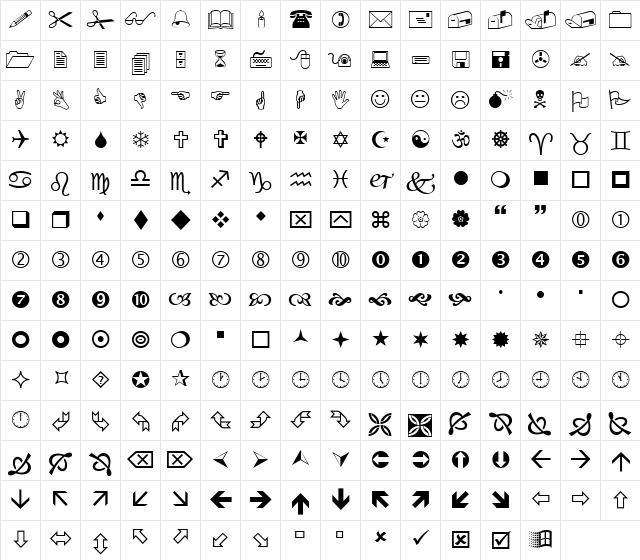
Wingdings Regular Free Font
Wingdings Regular
Wingdings Family
Complete Wingdings Regular glyph index. Displaying only characters natively supported by Wingdings Regular font.
Design Context for Wingdings
Wingdings is a composed and adaptable typeface that performs quietly and consistently across a wide range of design contexts.